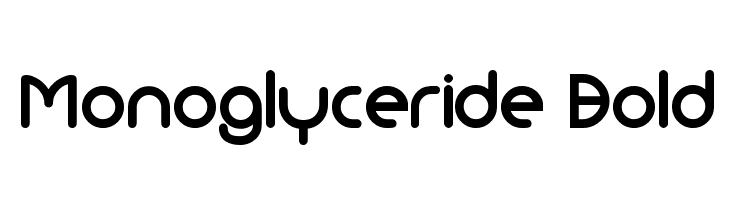
A 3D visual representation of Braille characters using raised spherical dots.
A bold, playful font with chunky, irregular letters and a retro comic book vibe.
A bold, rounded font with a modern and playful style.
A bold, playful font with rounded, bulbous shapes and a whimsical design.
A bold, stencil-style font with an industrial and rugged appearance.
A playful, hand-drawn font with irregular strokes and whimsical details.